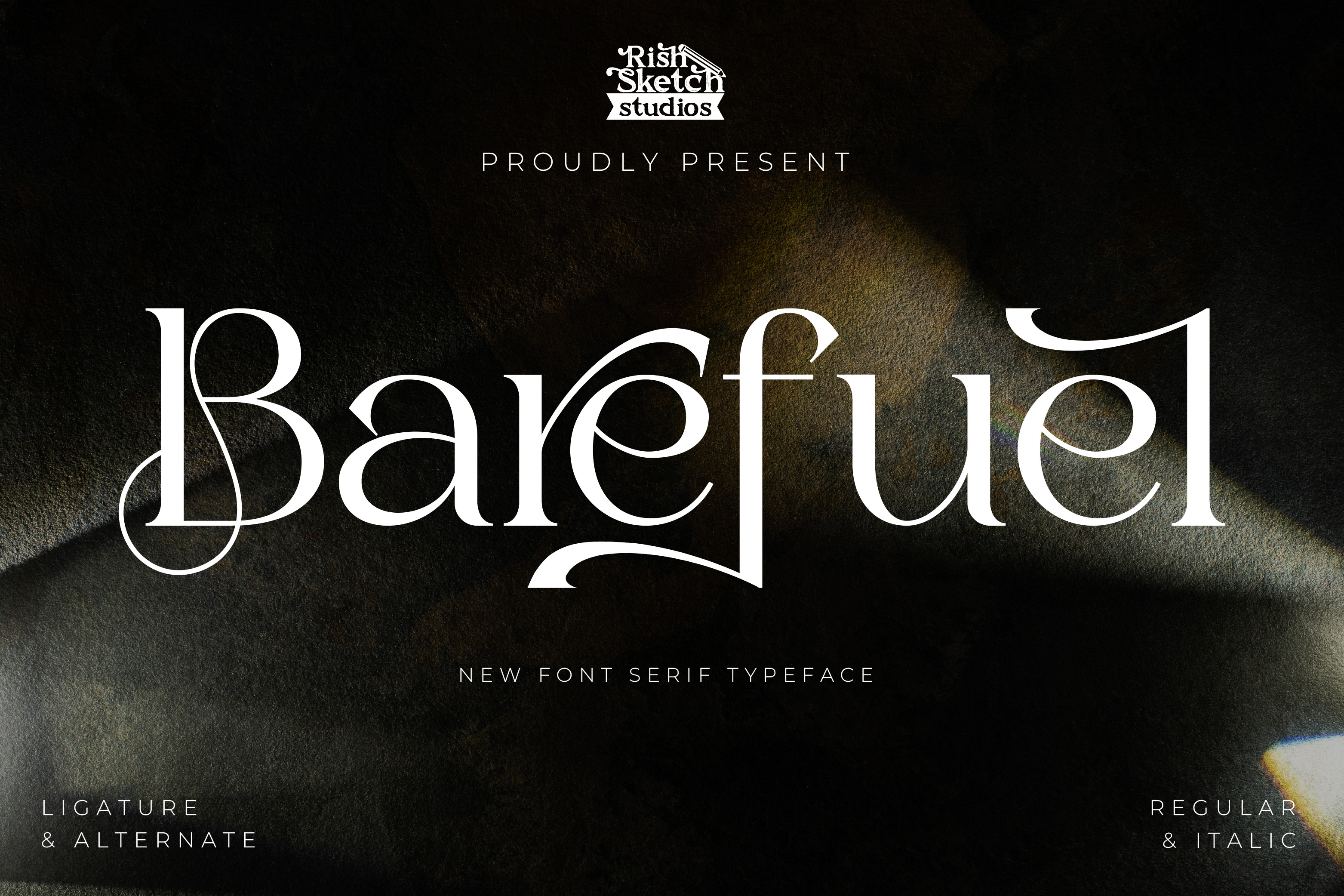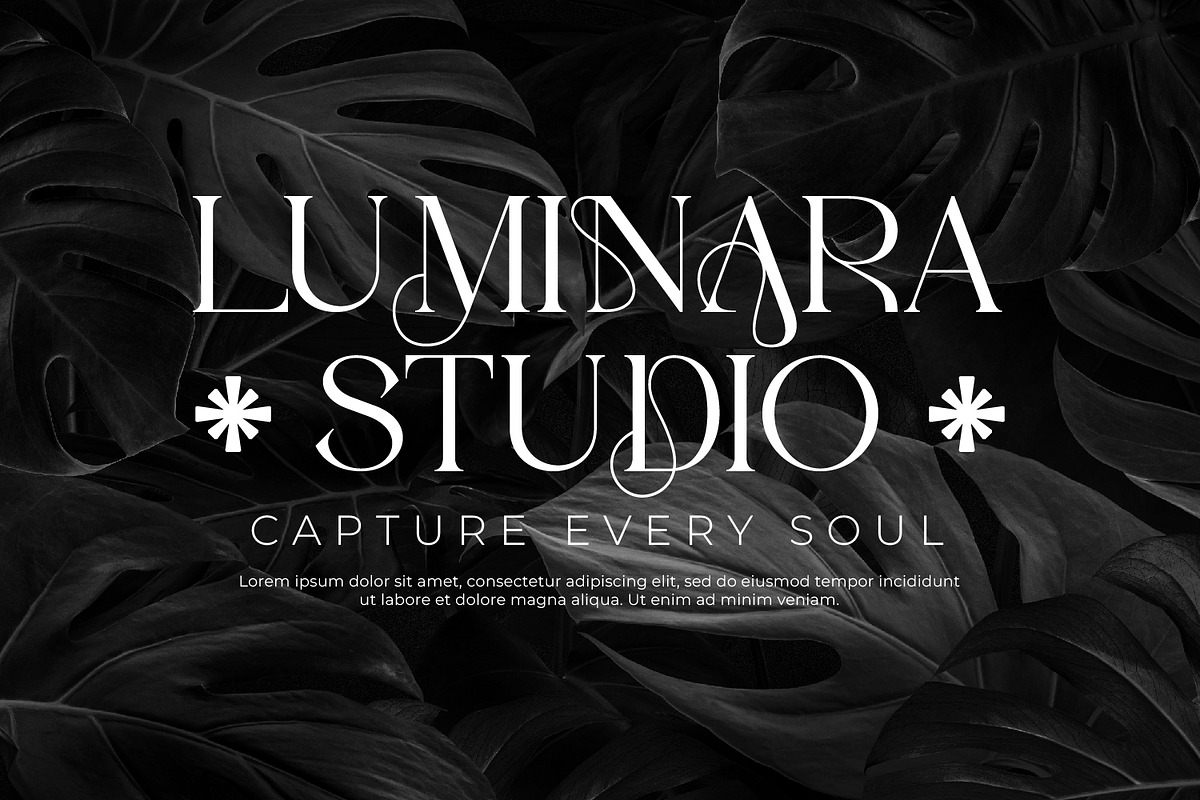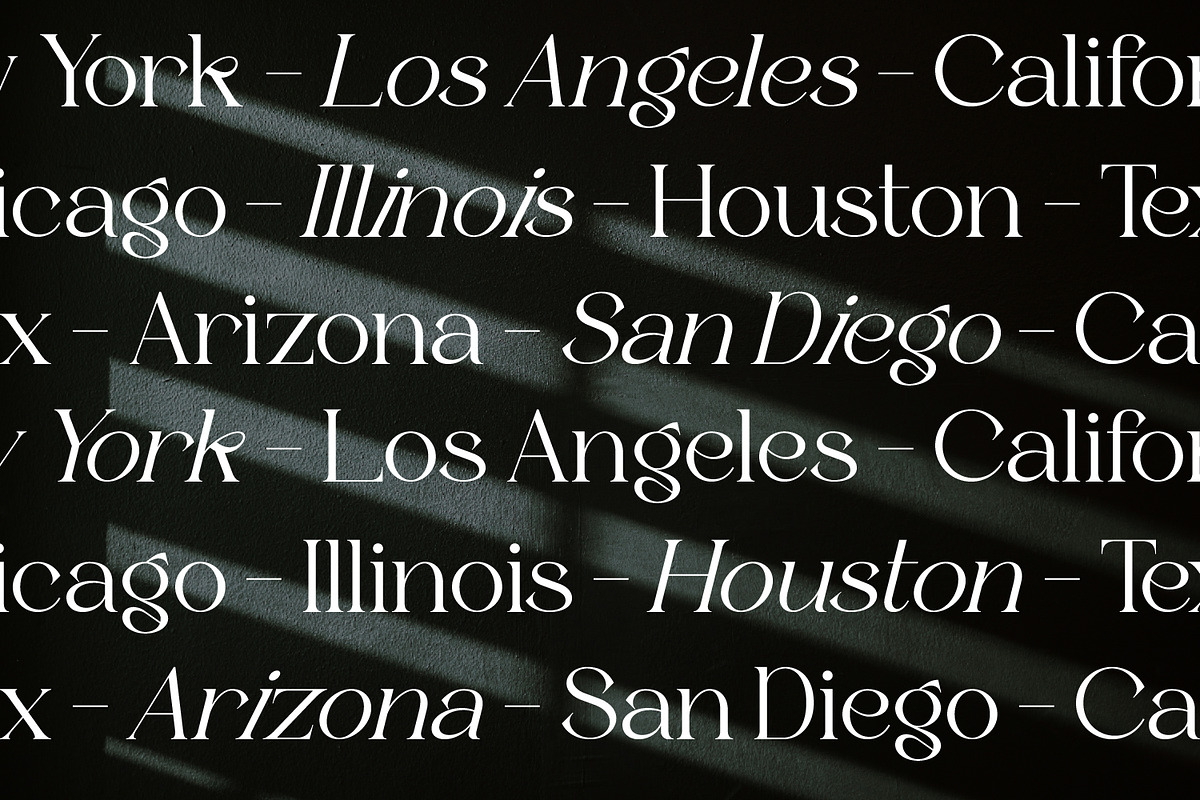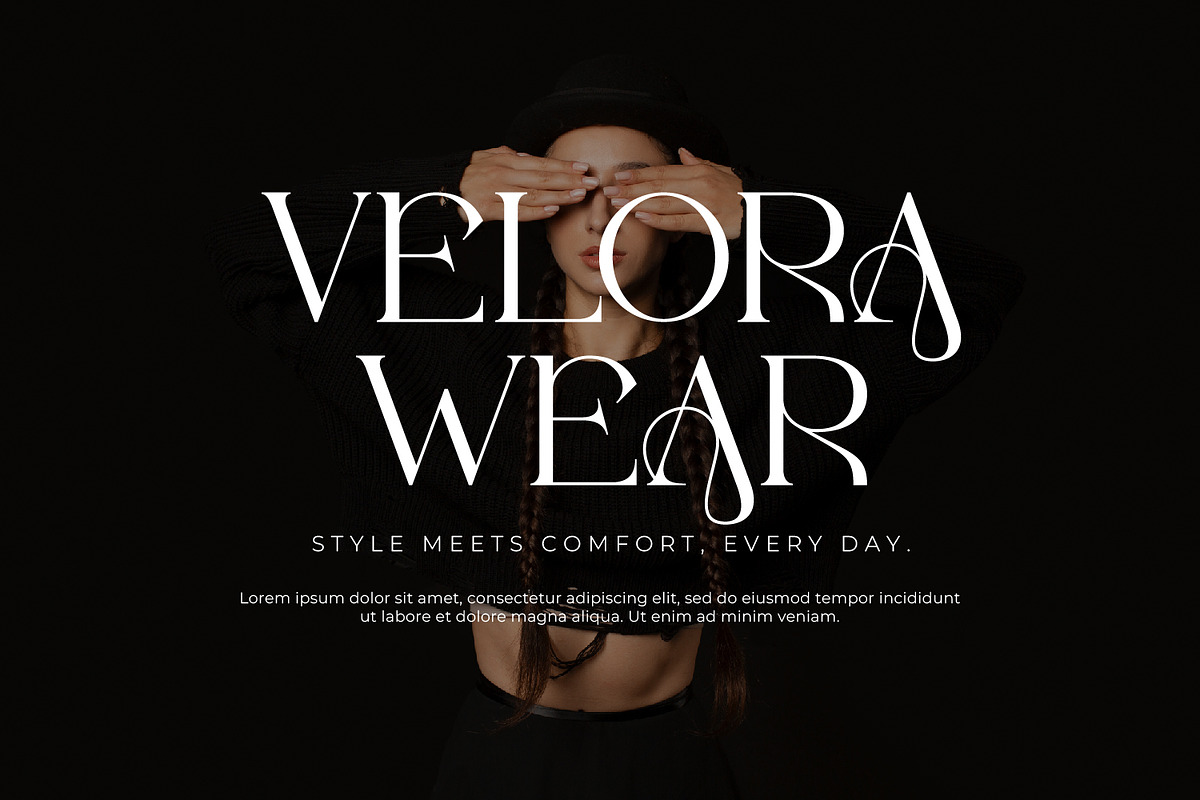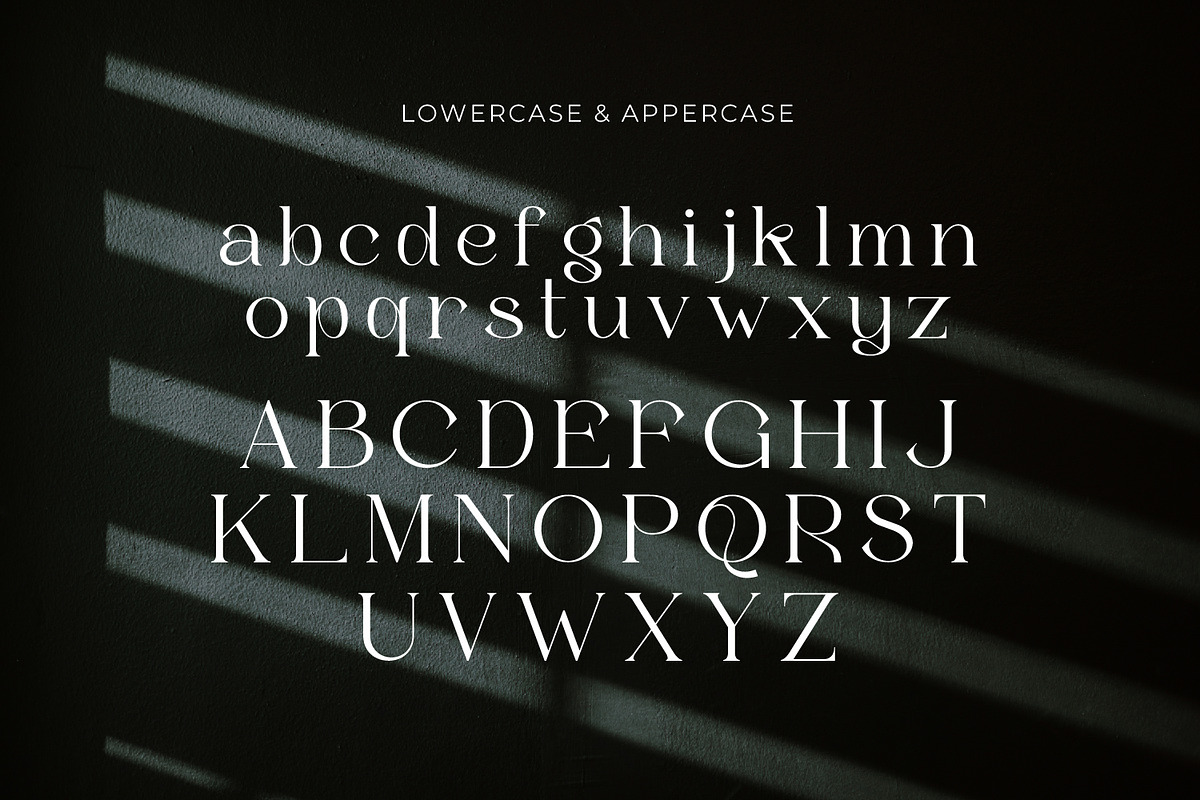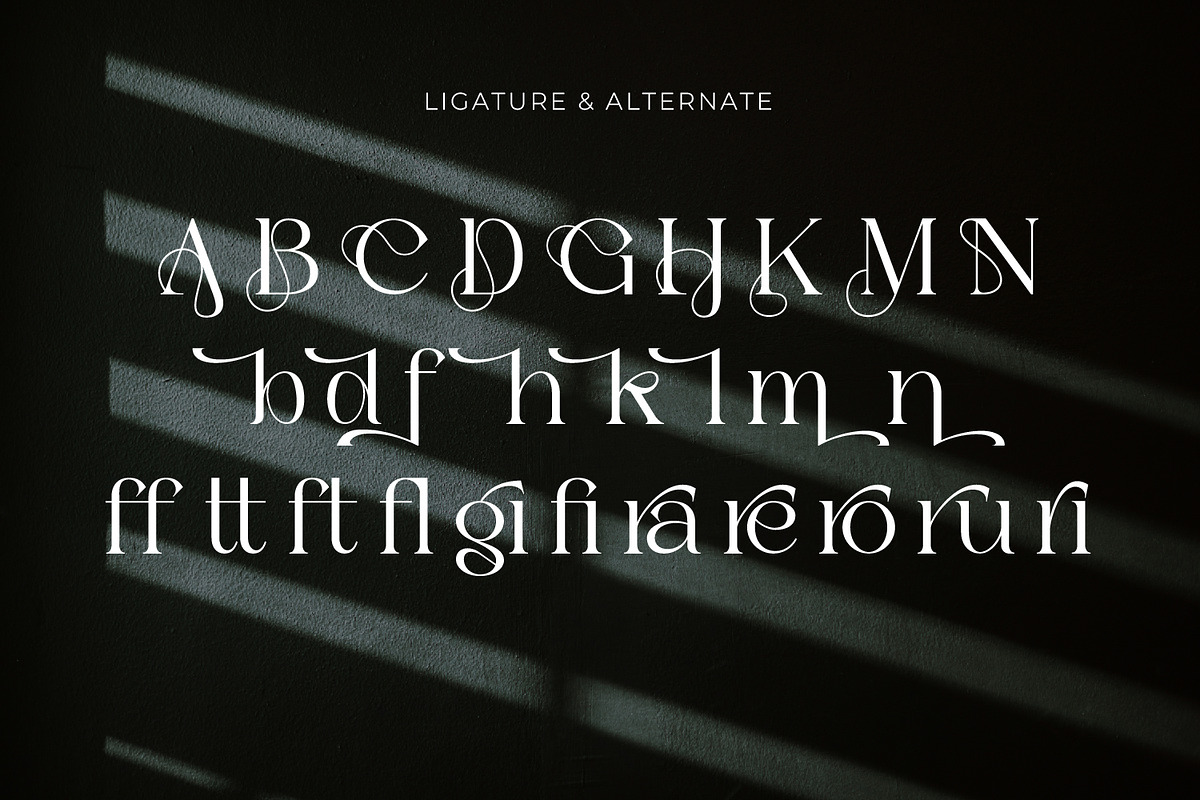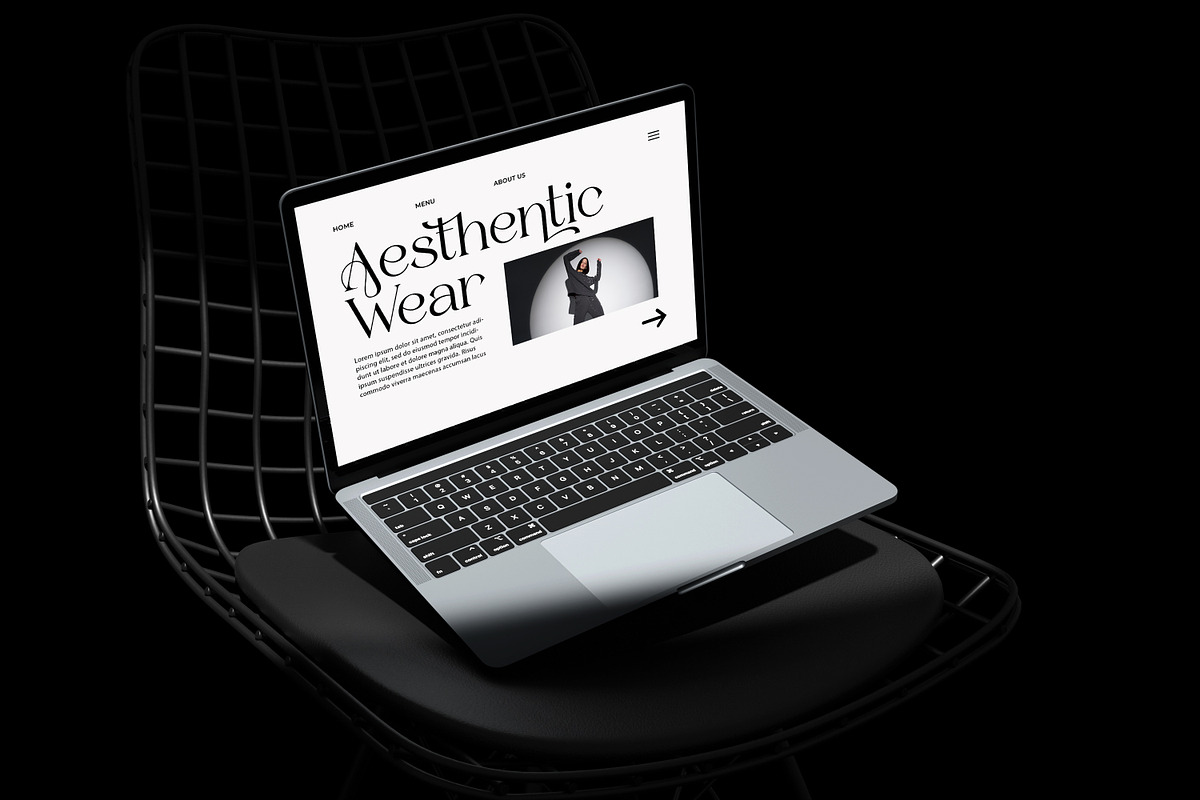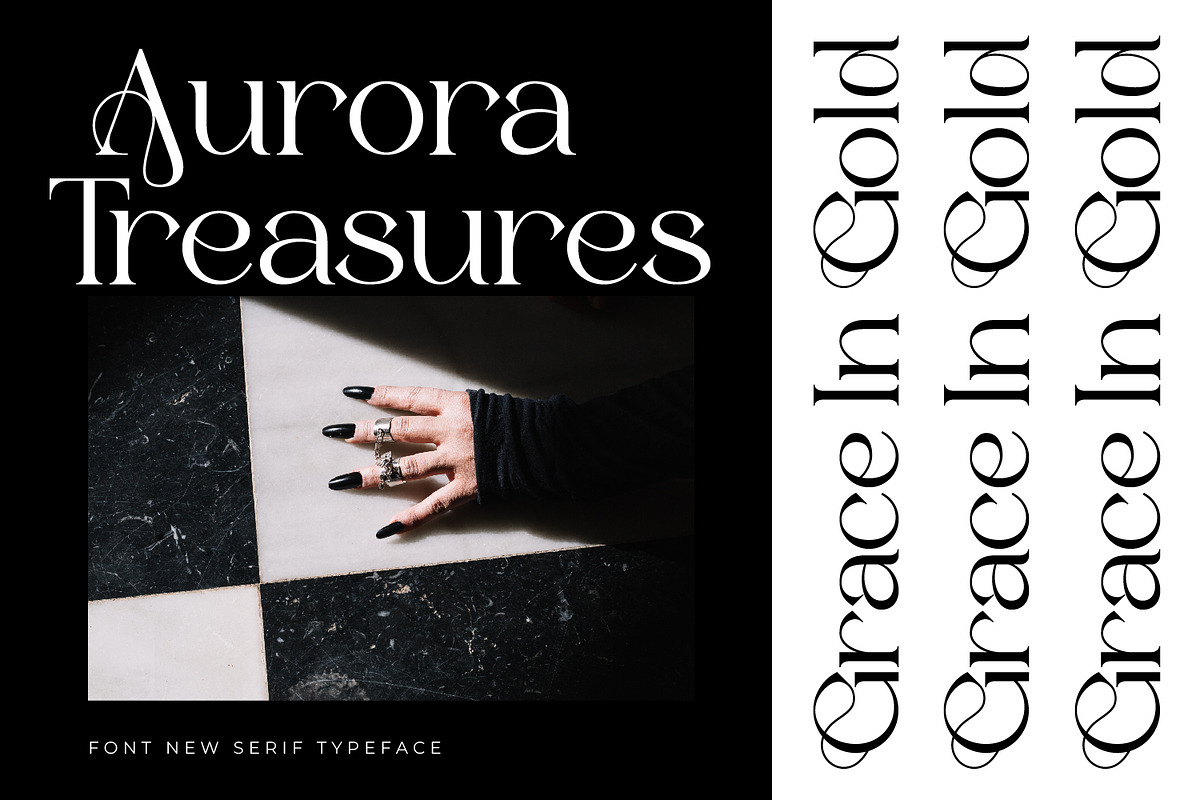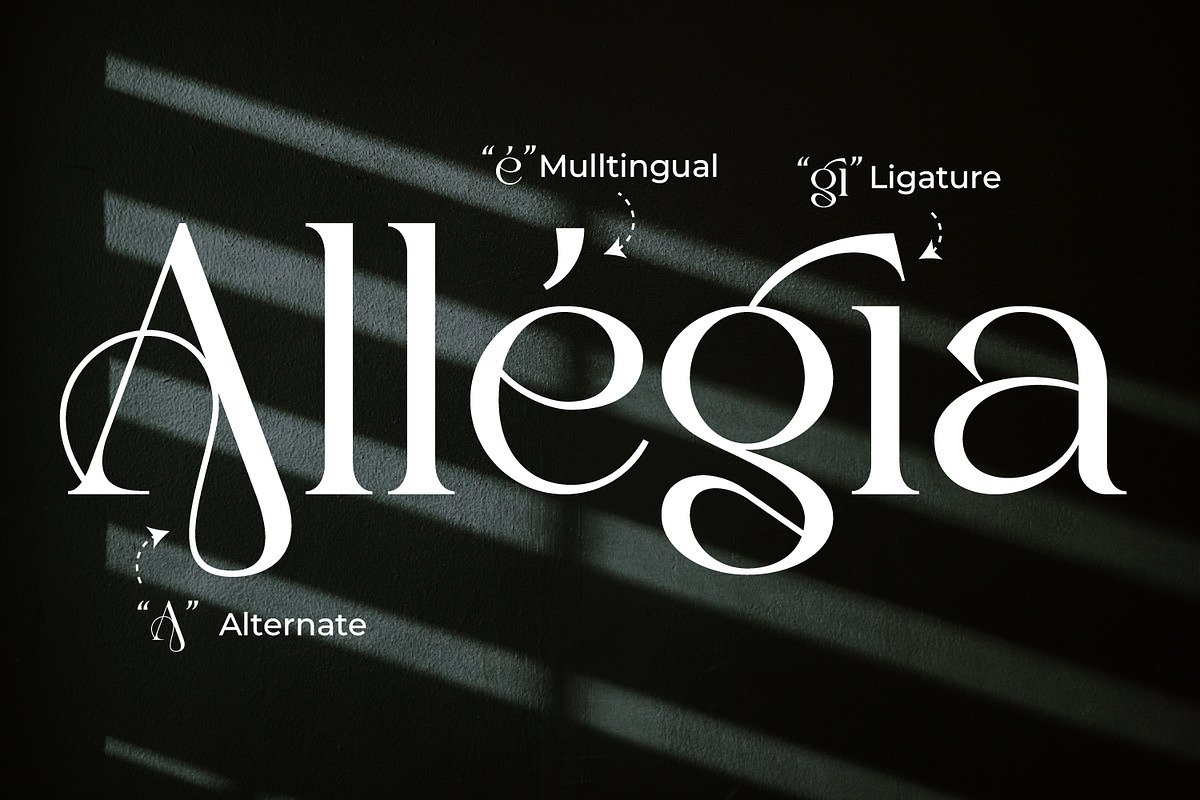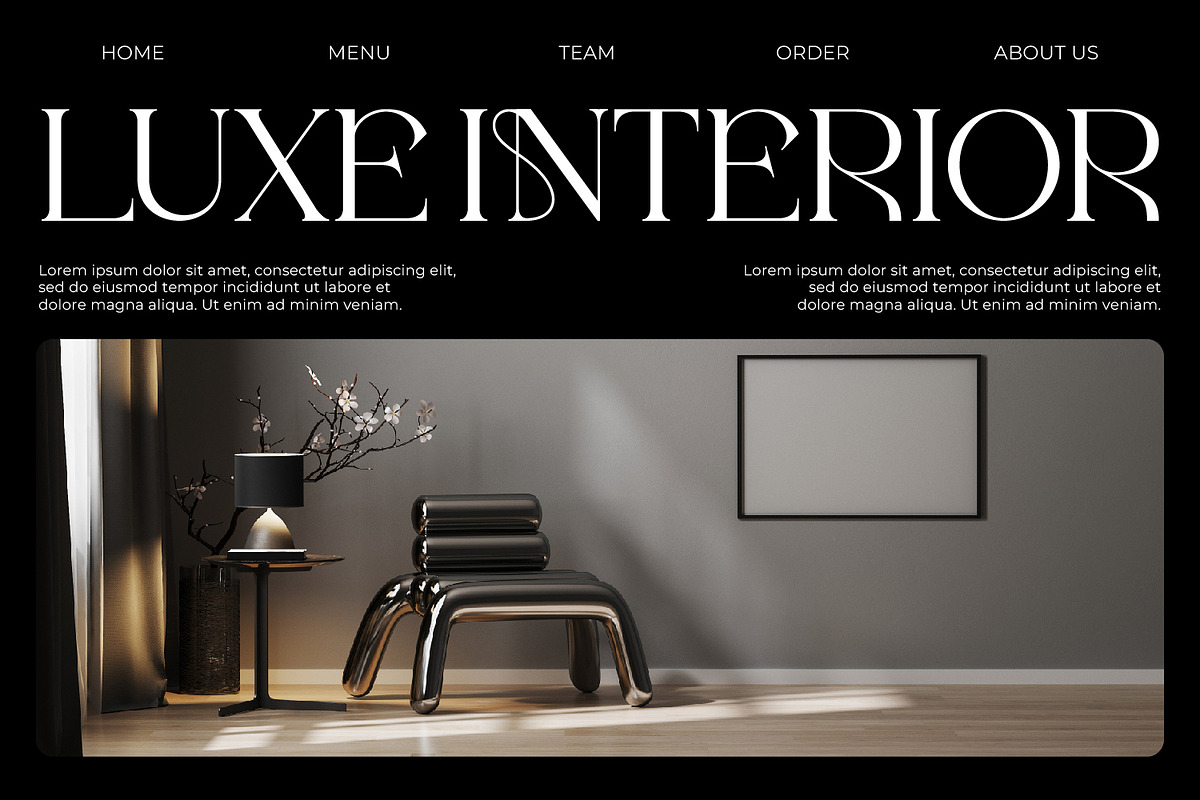
Barefuel - Serif Typeface Font
Barefuel - Serif Typeface Font, from Rishsketch Studios, is a premium Serif Typeface Font, perfect for any project that requires a distinctive, and premium feel.
Ligature, Alternate & Multilingual